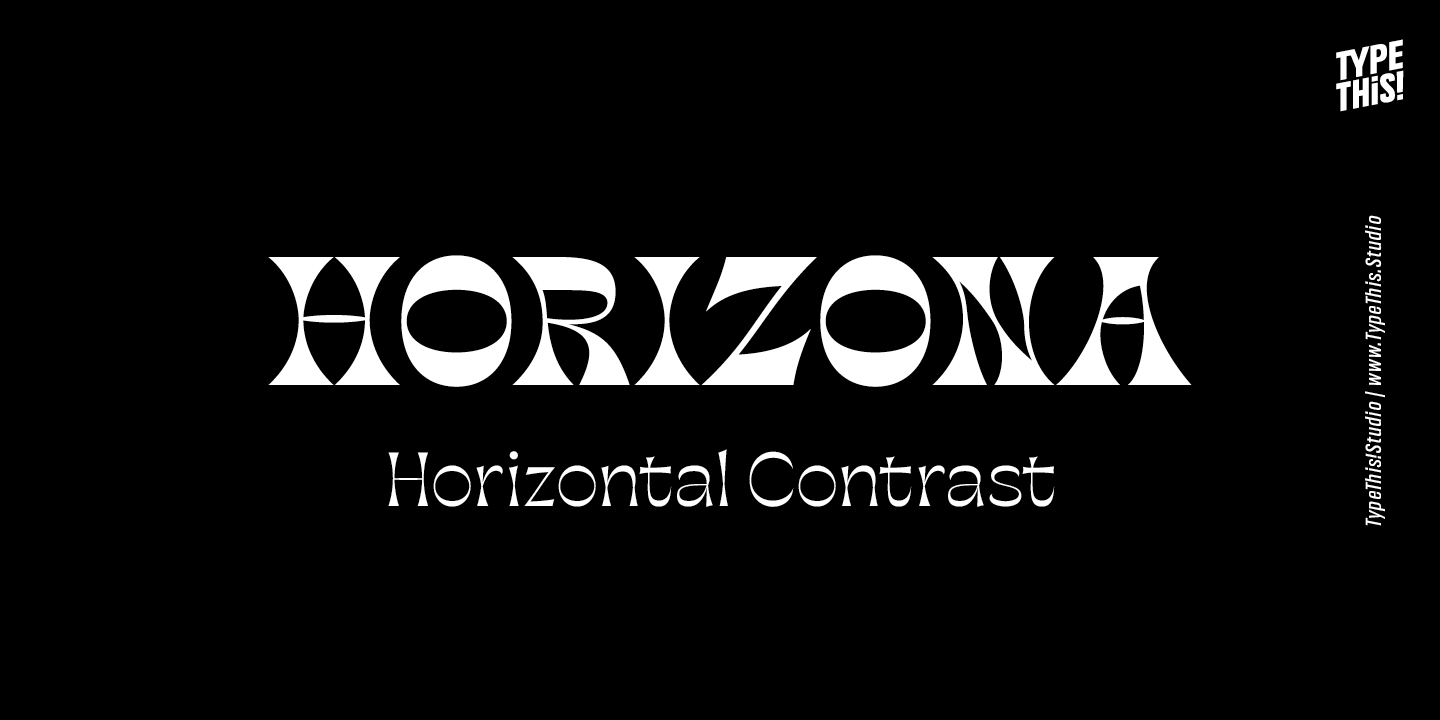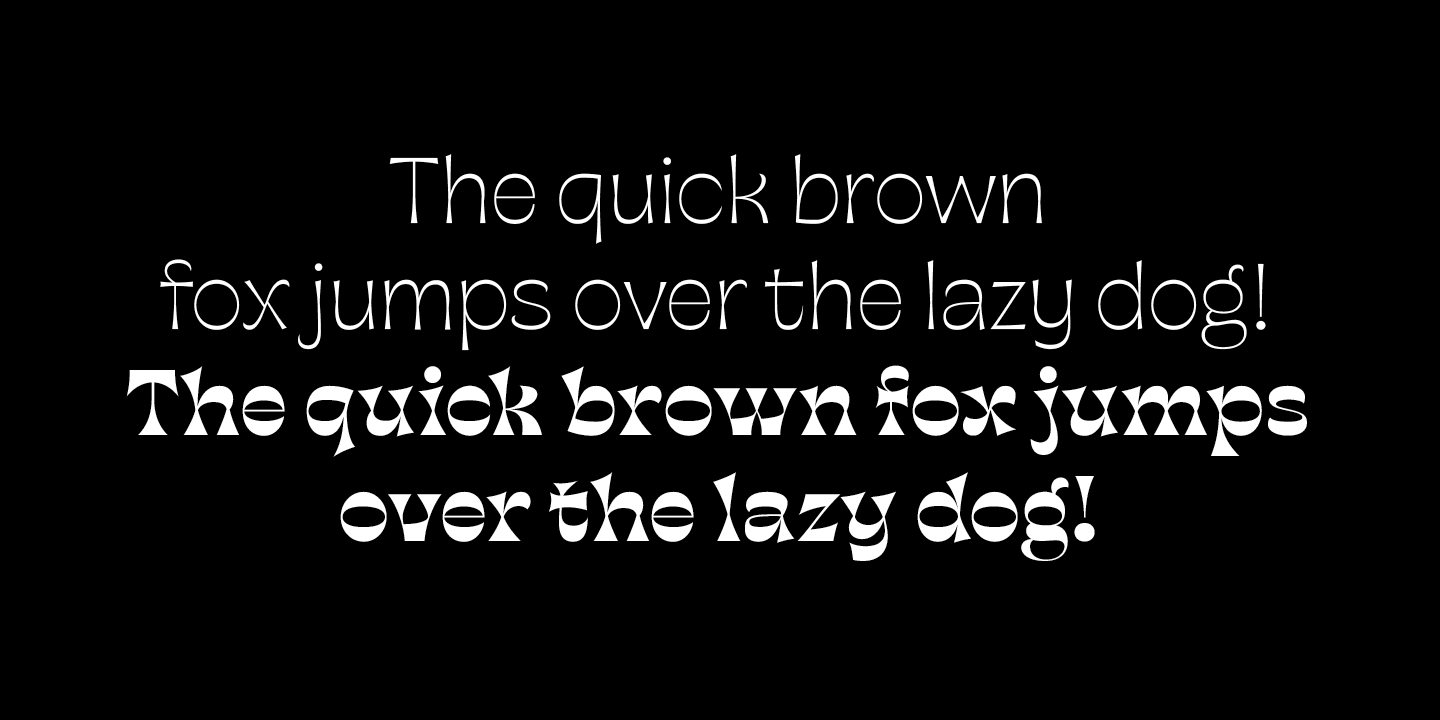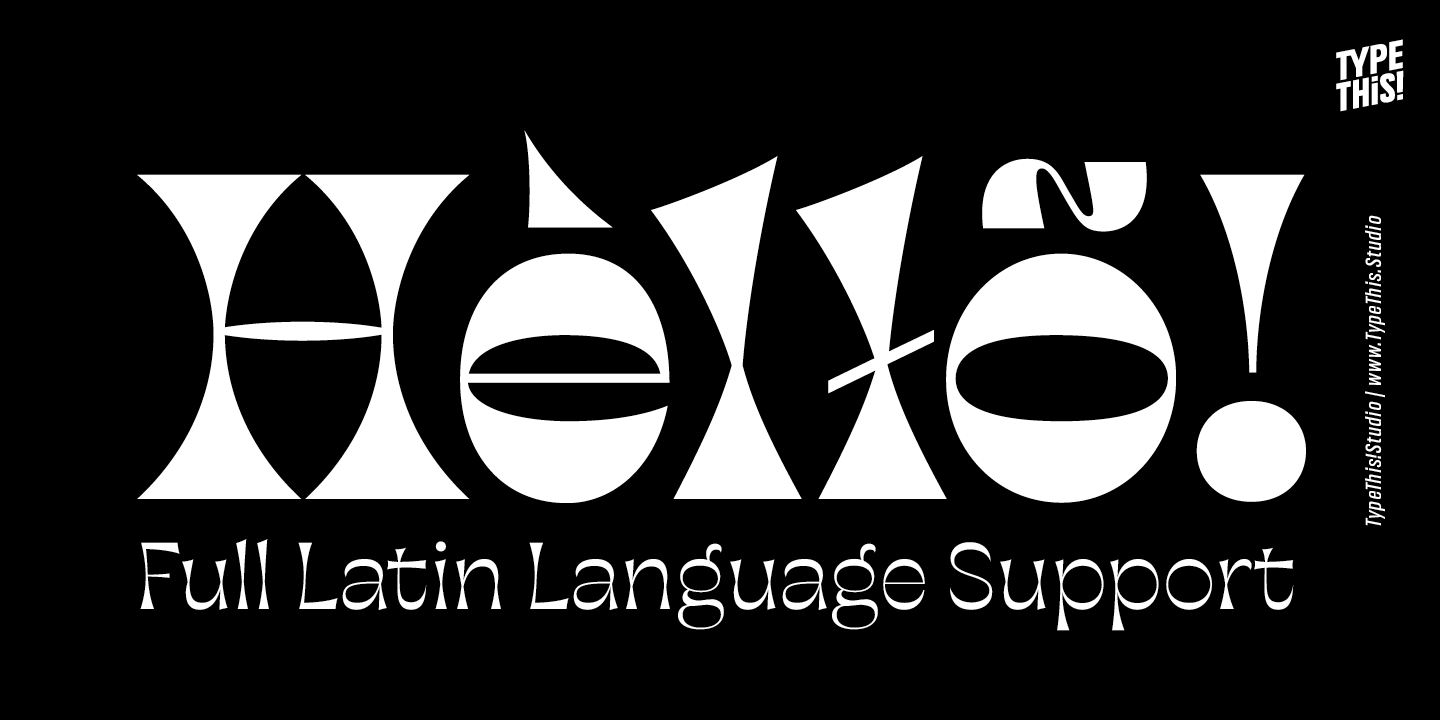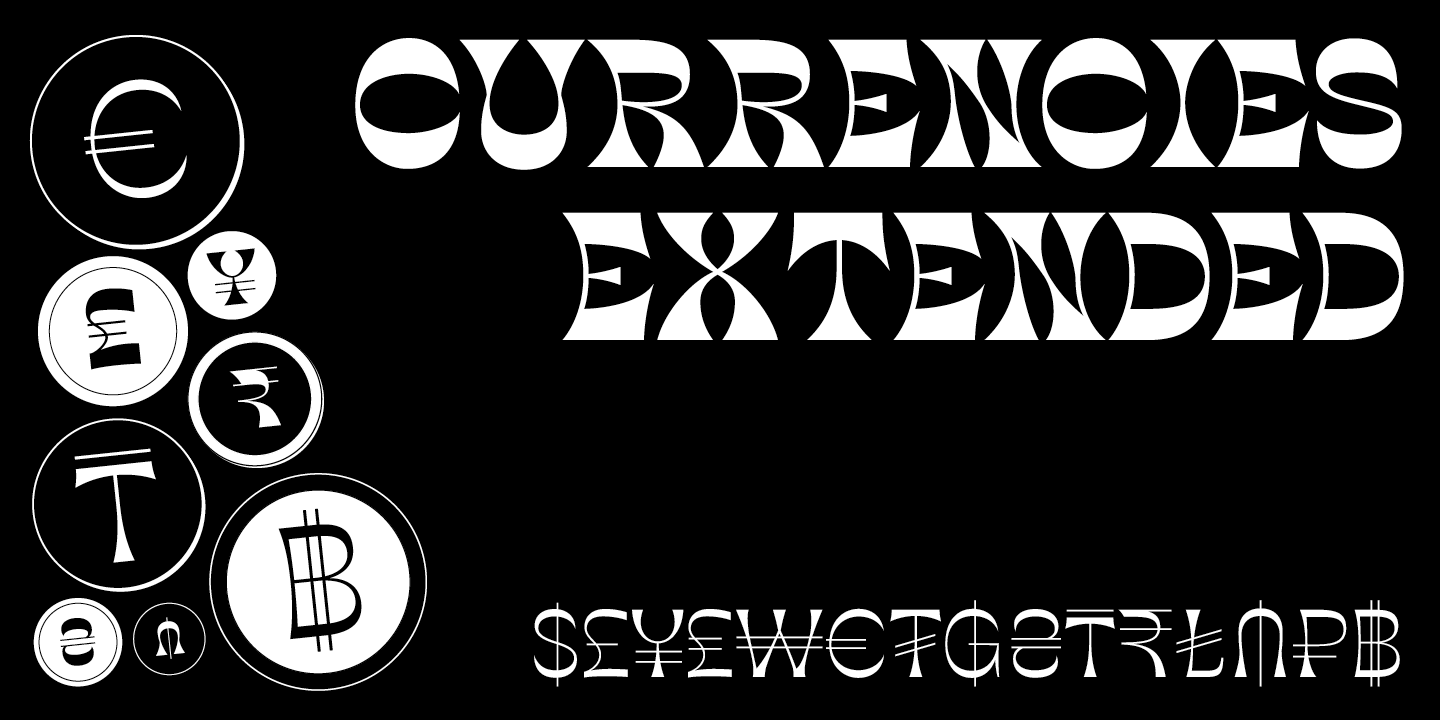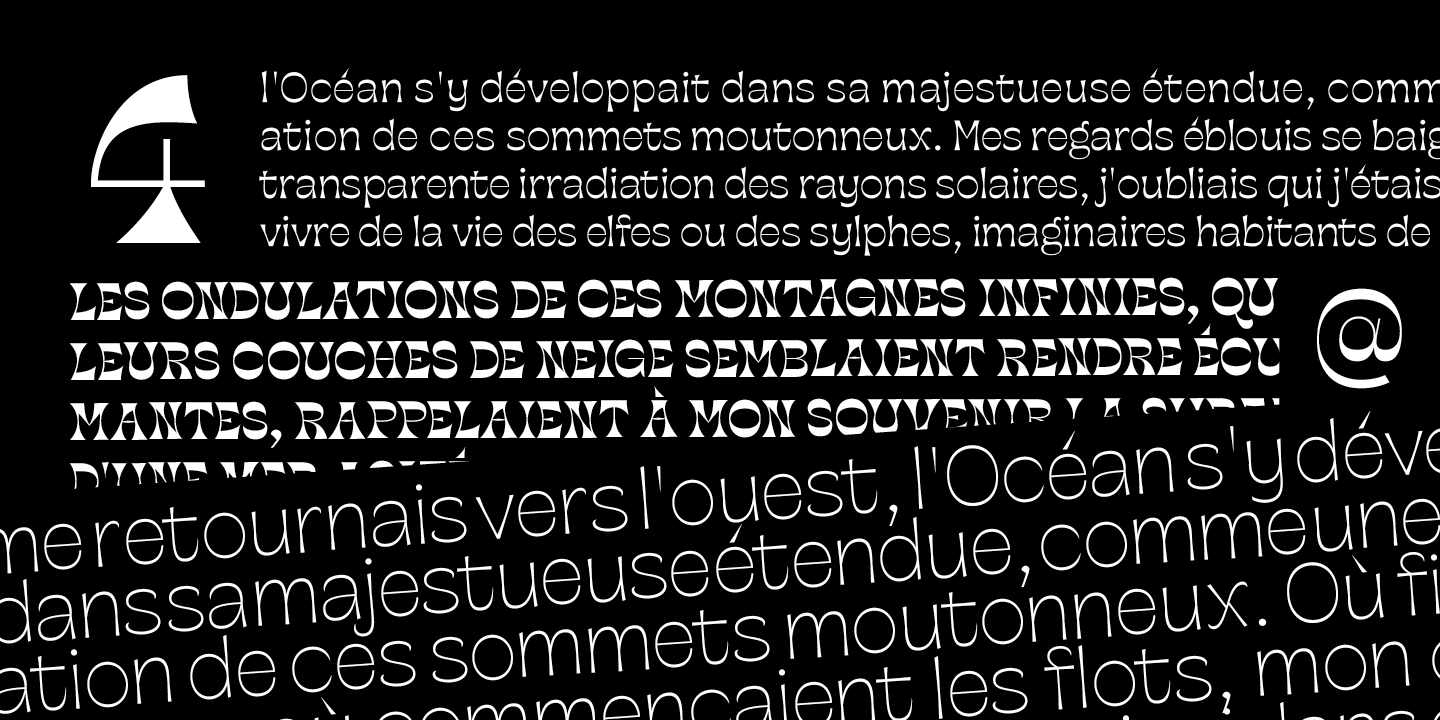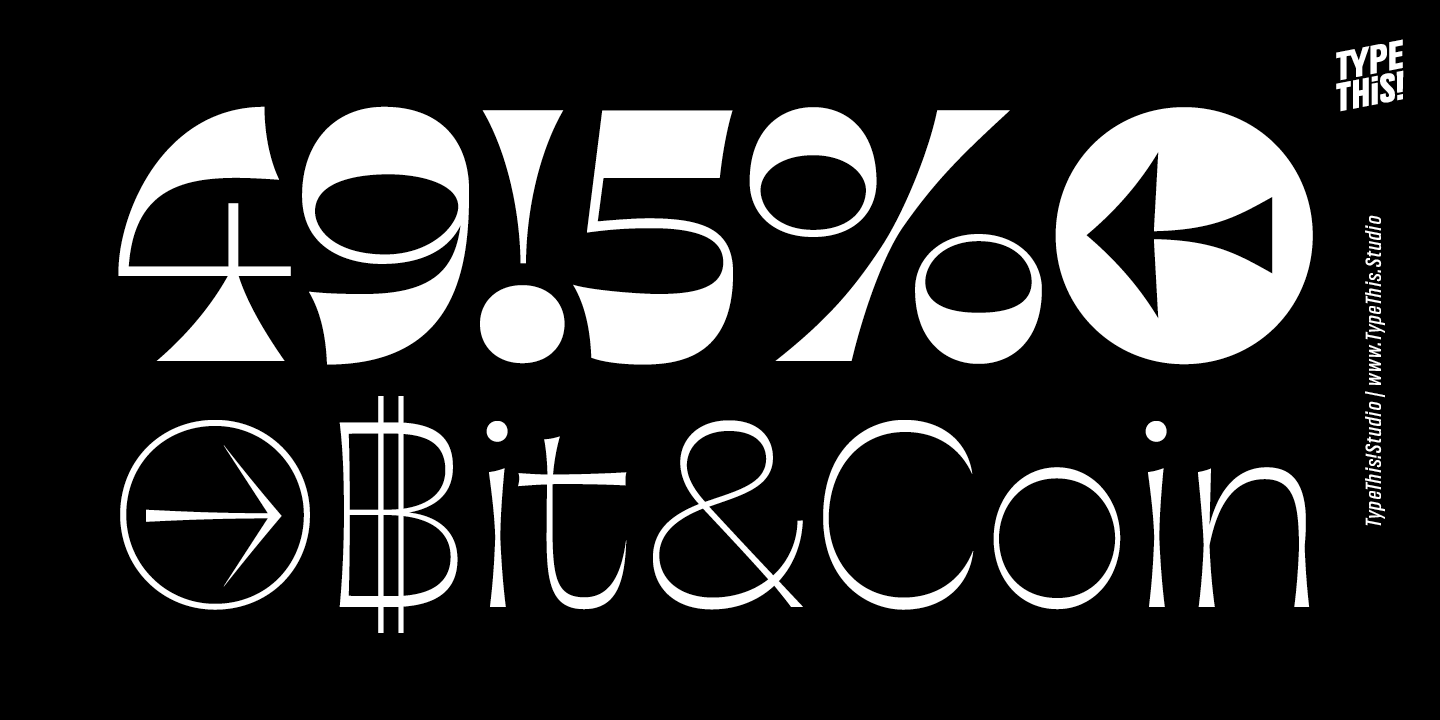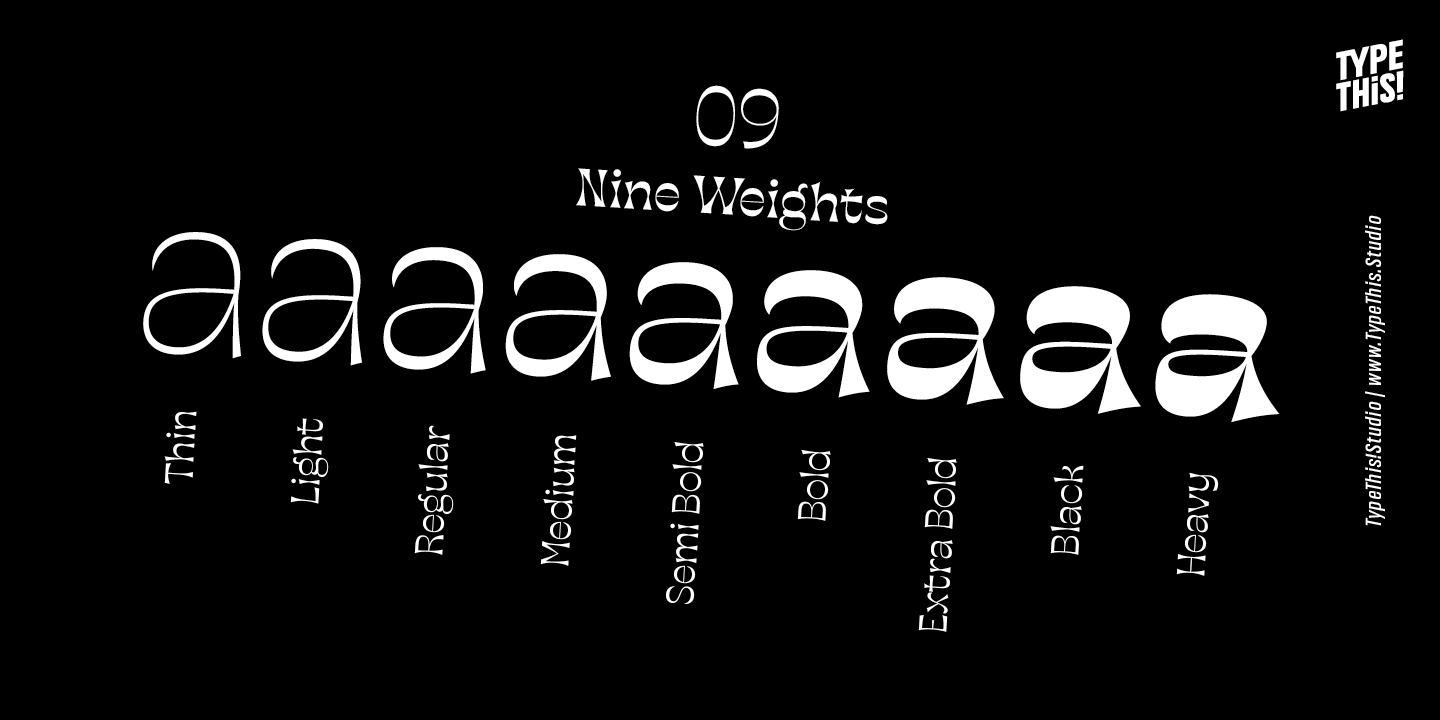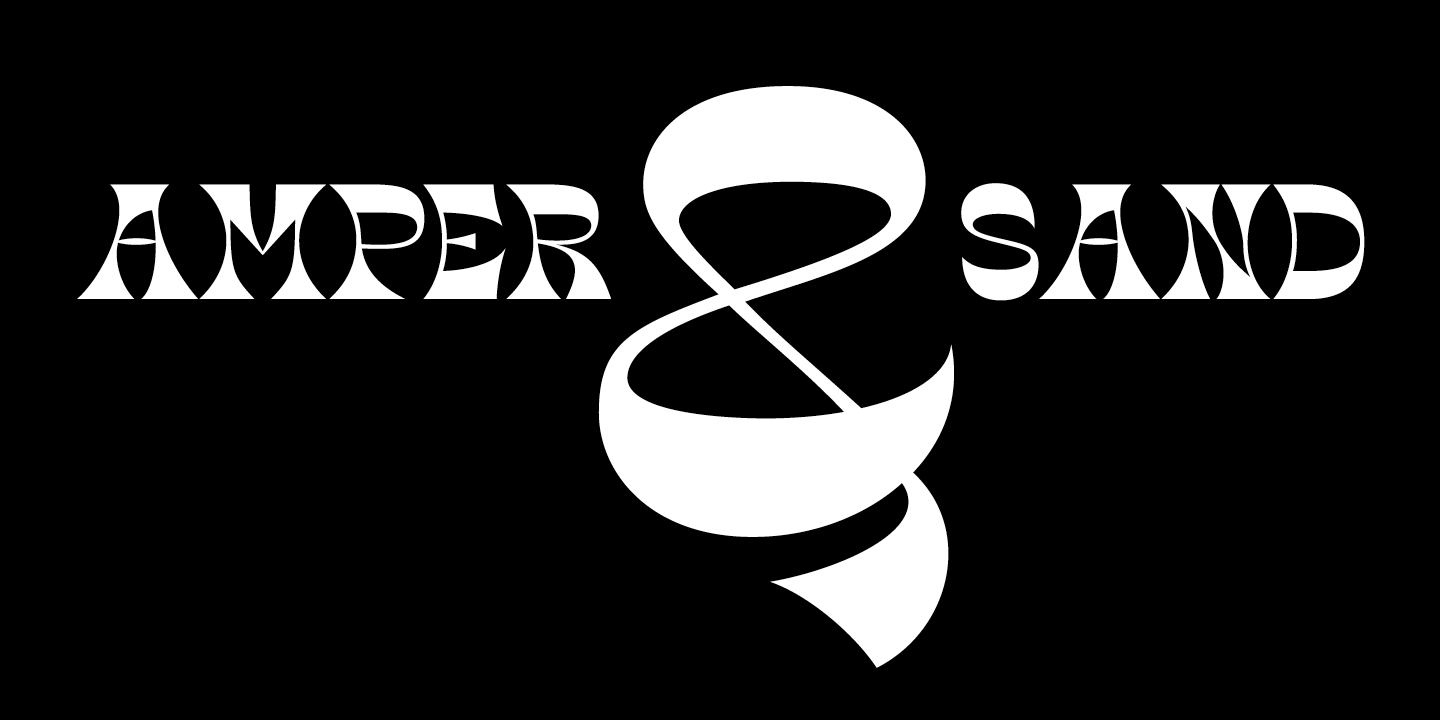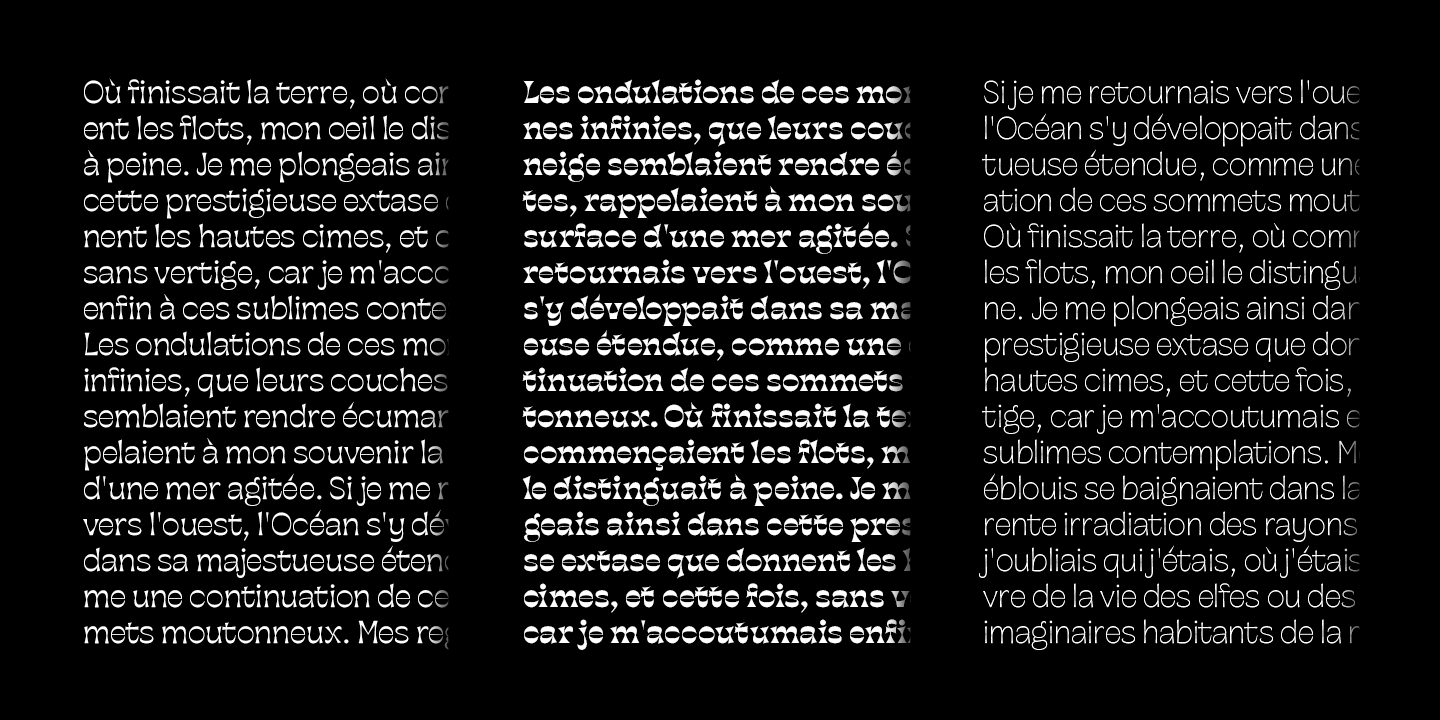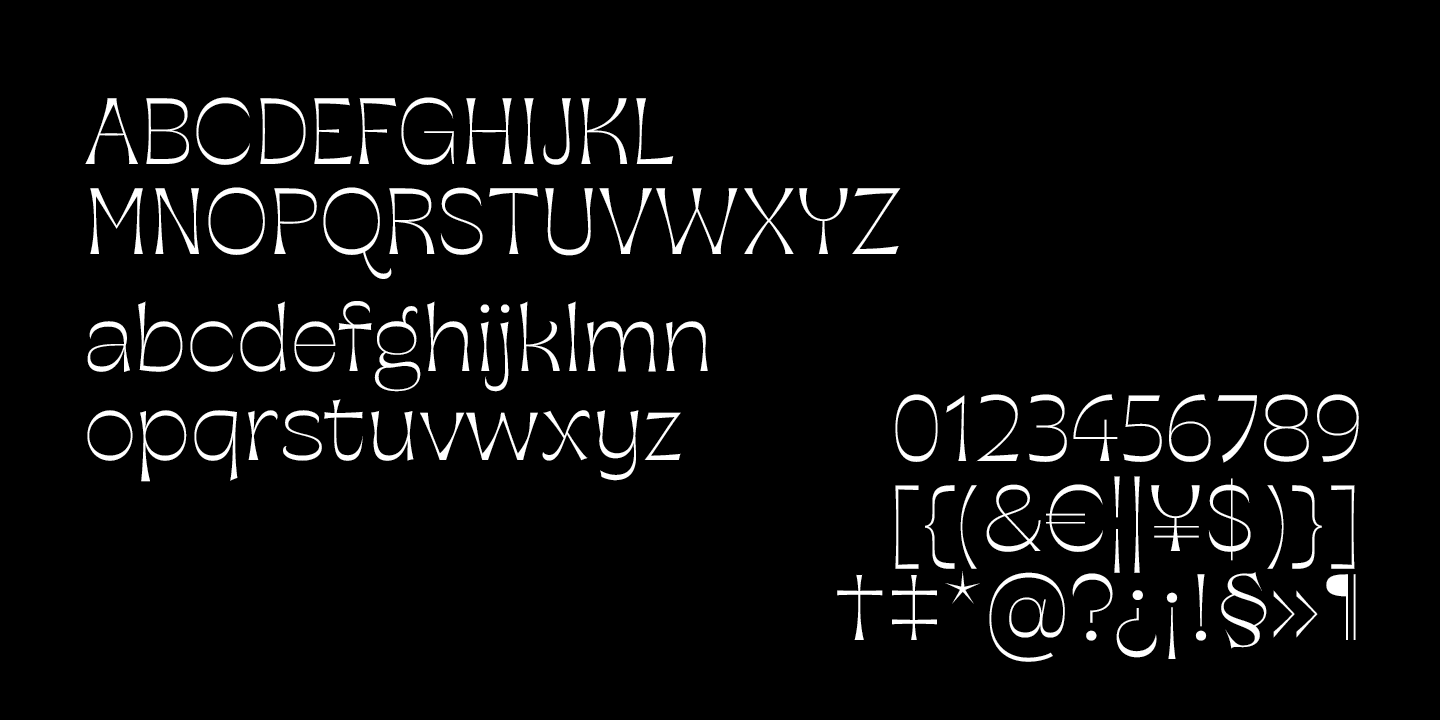
Horizona
Introducing an all-new typeface from TypeThis!Studio, Horizona!
This expressive font comes in nine different weights to grab everyone's attention. The range encompasses black weight to thin for striking headings and display typography. Horizona includes 580 glyphs including an extended set of currencies, such as the Rupee and Bitcoin. This eye-catching font doesn't stop there, though! Horizona also offers a set of circled and black circled arrows for design consistency that extends beyond the written word. Horizona's design keeps in mind the needs of its users and works to suit those, which is evident in the enormous glyph selection and extensive weight range.
Each iteration of Horizona is carefully designed to maintain consistency and the aesthetic integrity of this font. Users can be sure that any symbol they use, and in whatever language, the typeface's whimsical nature will shine through to provide a polished and stylized finish to their product. From branding to signage, editorial to advertising, or even for personal use, Horizona makes a statement in a huge variety of languages, letters, symbols, and numbers. www.typethis.studio
· 580 Characters
· 9 Styles
· Full Latin Language Support, incl. Vietnamese
· Numbers
· Symbols
· Punctuation